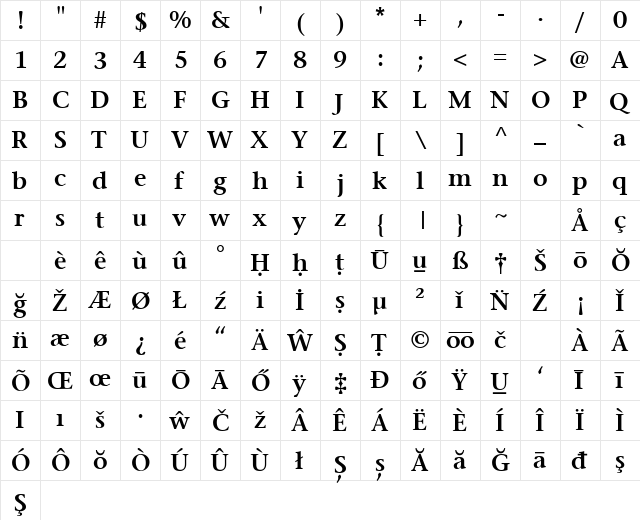
StoneSerif SAIN SmBd v.1 Semibold
Design Context for StoneSerif SAIN SmBd v.1 Typeface
StoneSerif SAIN SmBd v.1 carries the refined structure of traditional serif typography, with bracketed terminals and considered proportions that communicate credibility and craft. The heavy weight commands attention and anchors typographic hierarchies.
Pro Tip: Set StoneSerif SAIN SmBd v.1 with slightly loose tracking in headlines to let each letterform's detail read clearly at display sizes.